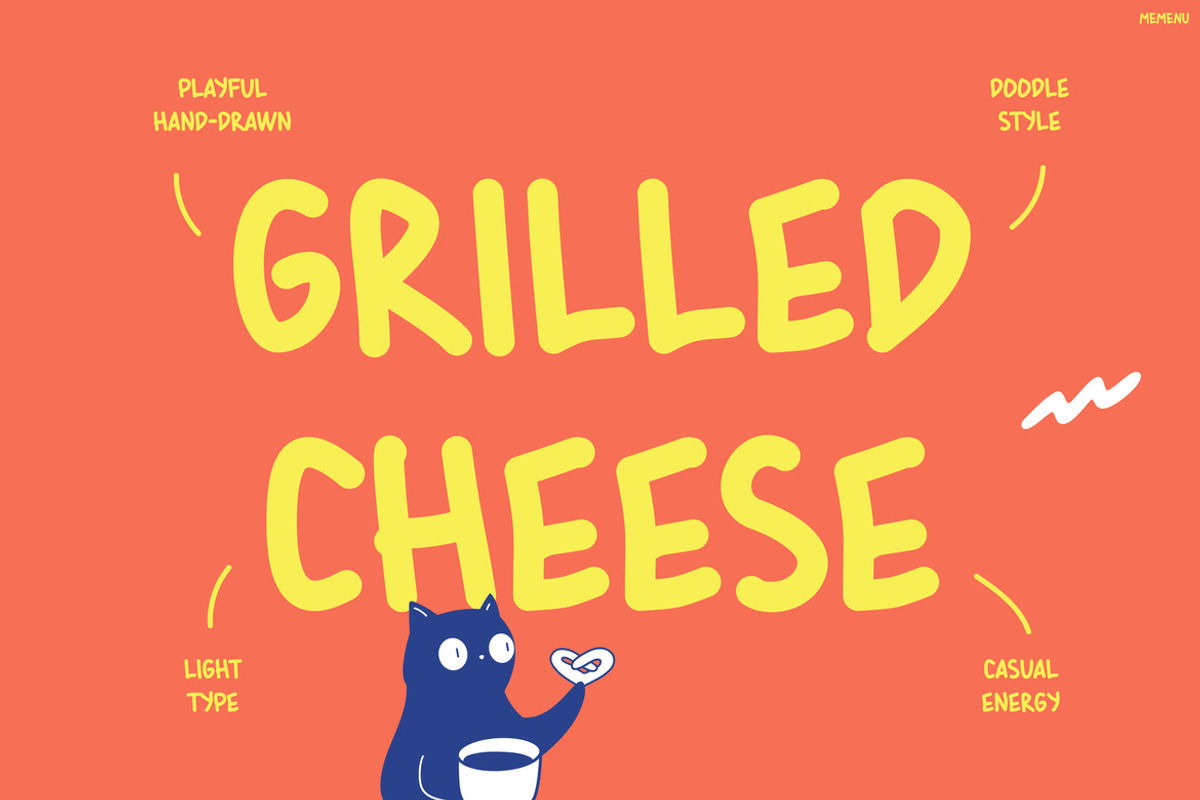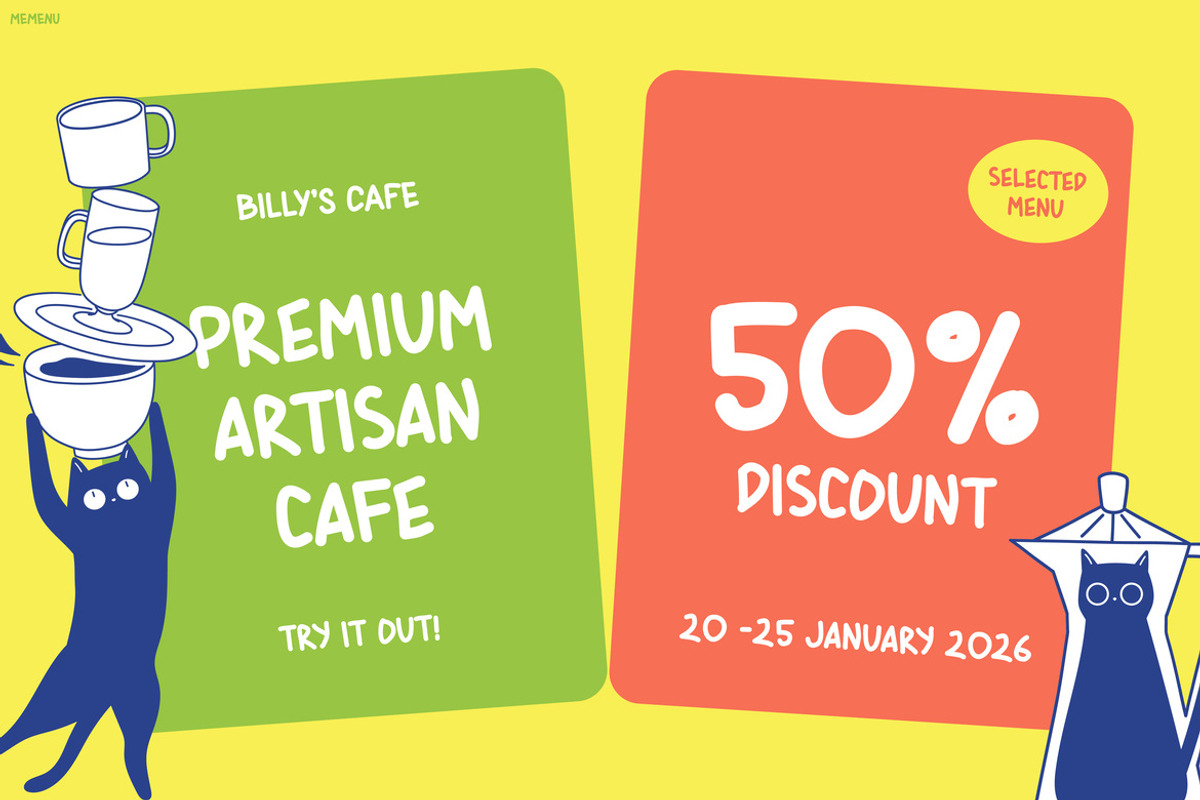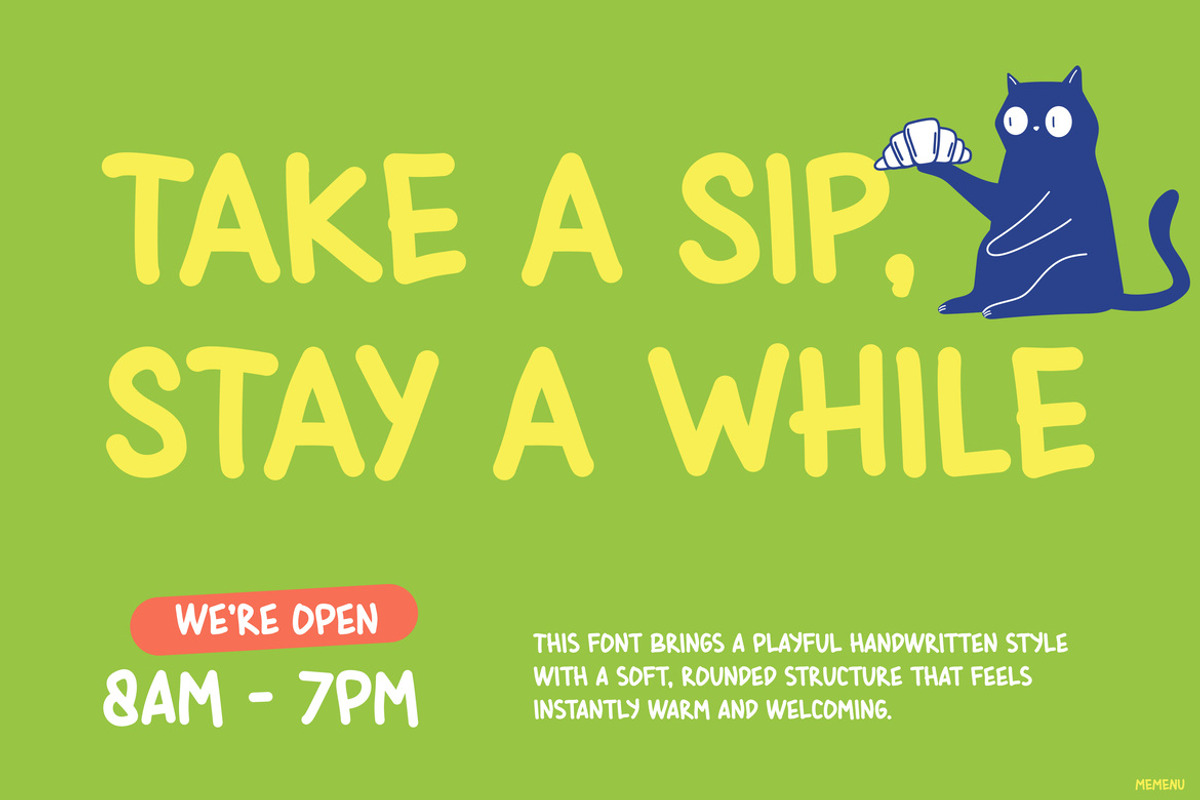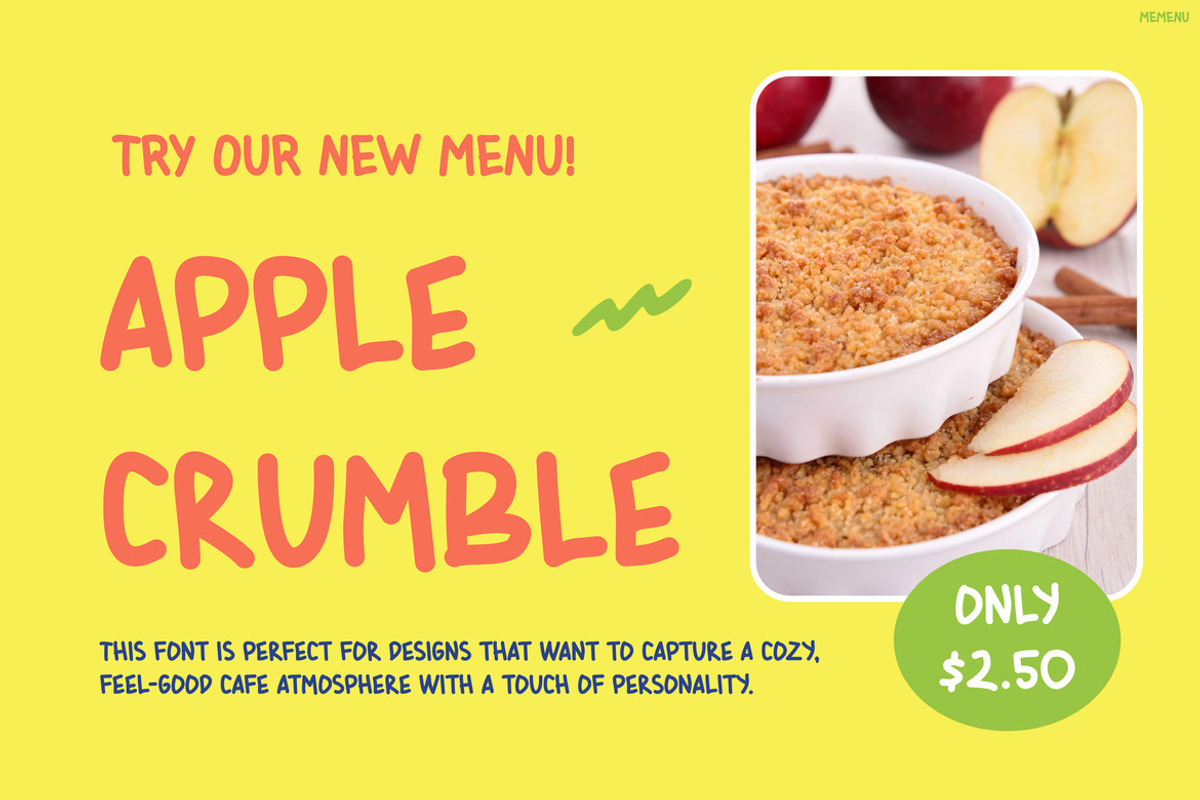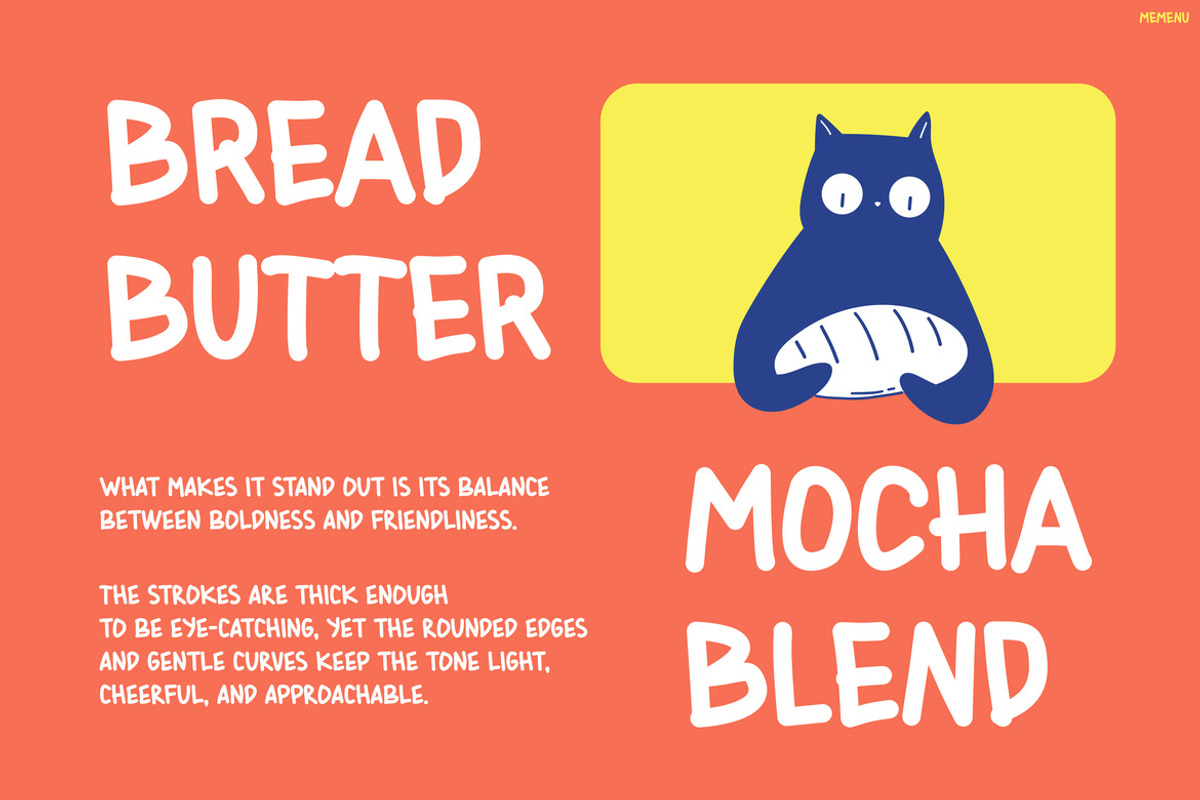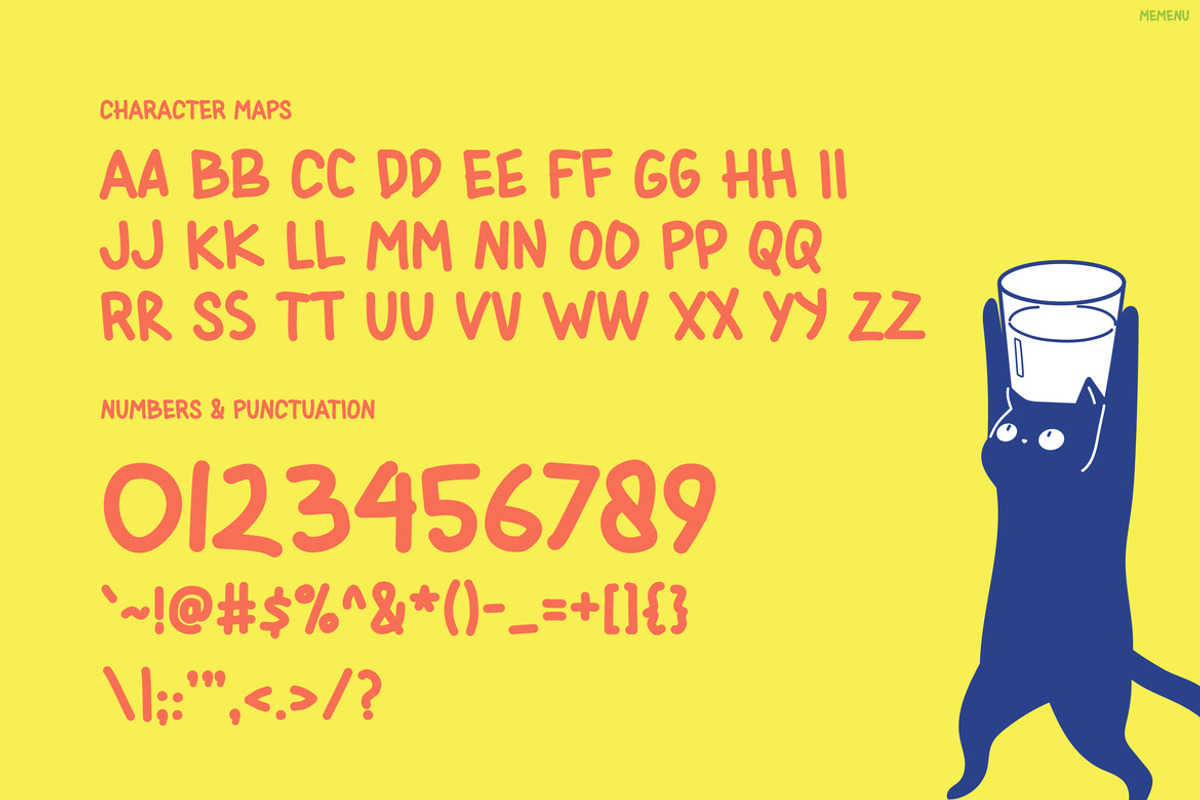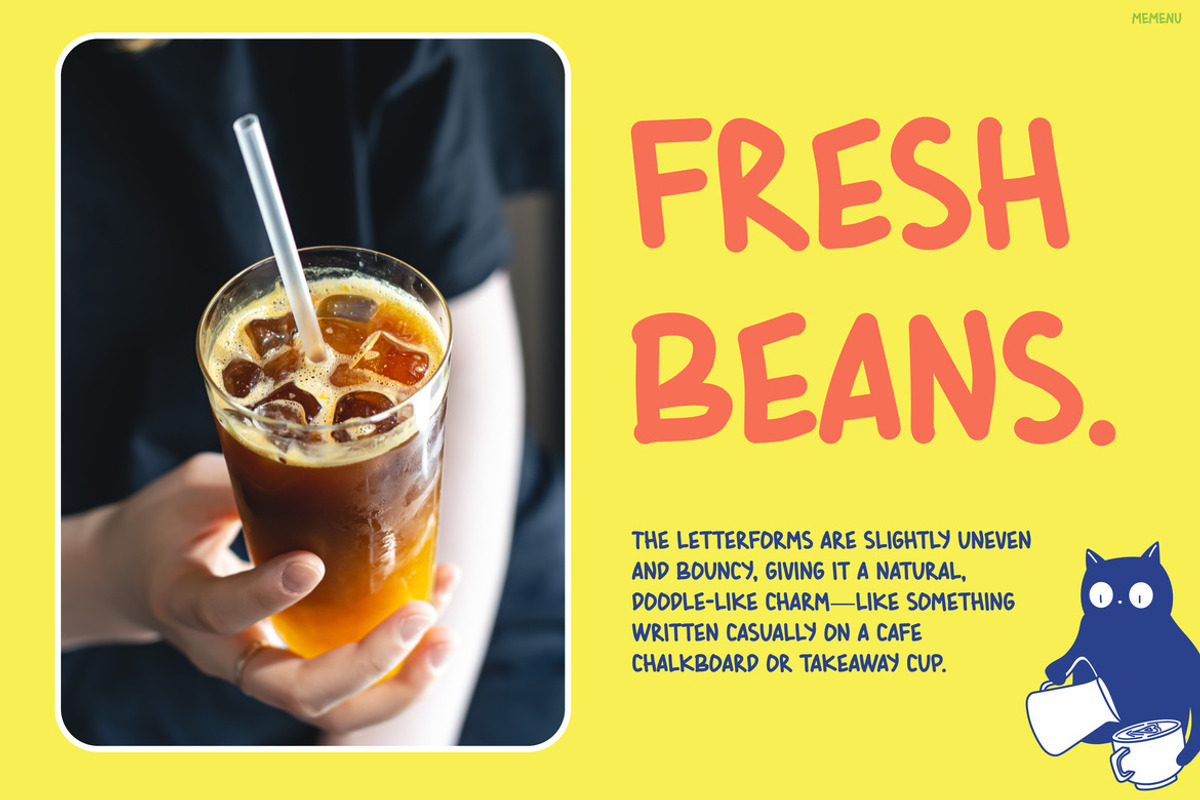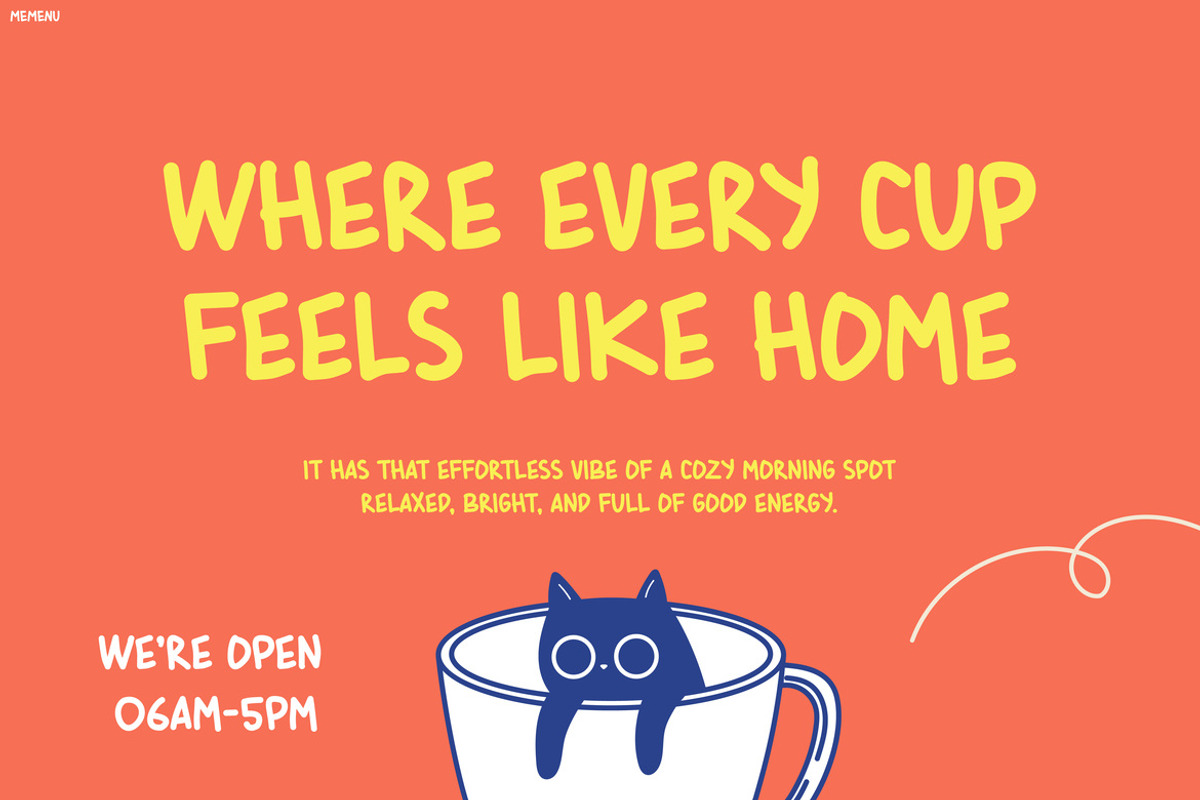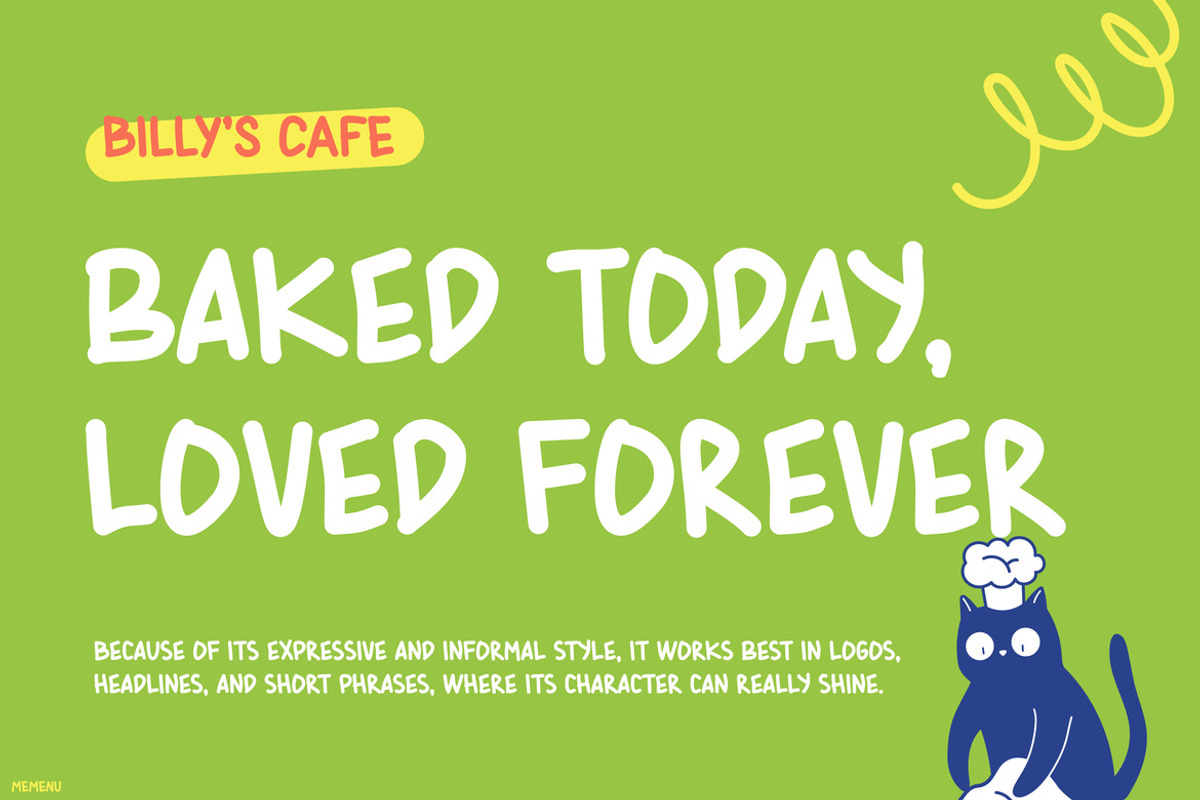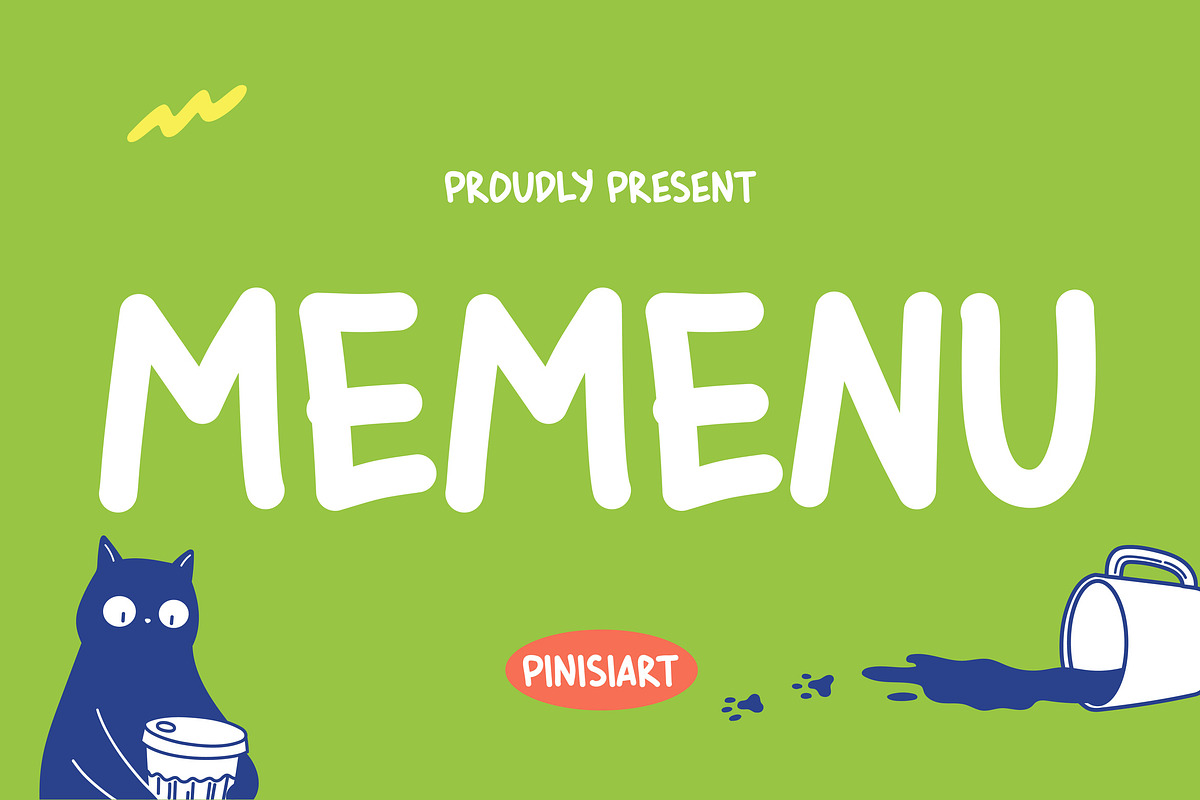
MEMENU
MEMENU – Cute Playful Font for Fun Cafe Vibes
Kids Font MEMENU is a cheerful and playful typeface designed to bring fun and personality into every design. At first glance, its rounded shapes and hand-drawn style create a warm and friendly vibe. Moreover, the slightly imperfect strokes give it a cute and natural look that feels lively and approachable. Because of this playful aesthetic, the font instantly grabs attention while still staying easy to read. In addition, its balanced structure makes it perfect for both bold headlines and casual text. As a result, MEMENU delivers designs that feel cozy, fun, and full of character.
Kids Font MEMENU is a delightful display font created for playful and creative projects. Not only does it feature soft, rounded letterforms, but it also pairs perfectly with bright colors, illustrations, and cafe-style themes. Furthermore, its friendly personality makes designs feel more engaging and welcoming. Therefore, whether you are working on branding, posters, or social media, MEMENU adds a joyful and relaxed touch. Ultimately, it transforms simple text into charming visuals that people love to see.